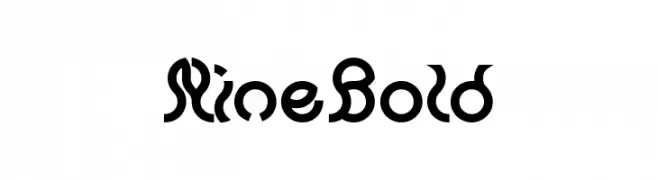
A bold, decorative font with high contrast and unique, artistic elements.
A bold, italicized decorative font with dramatic curves and ornate styling.